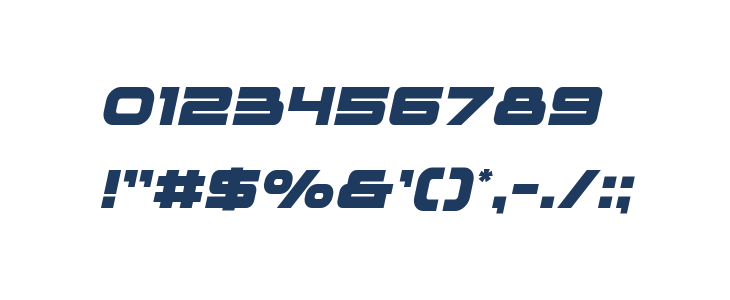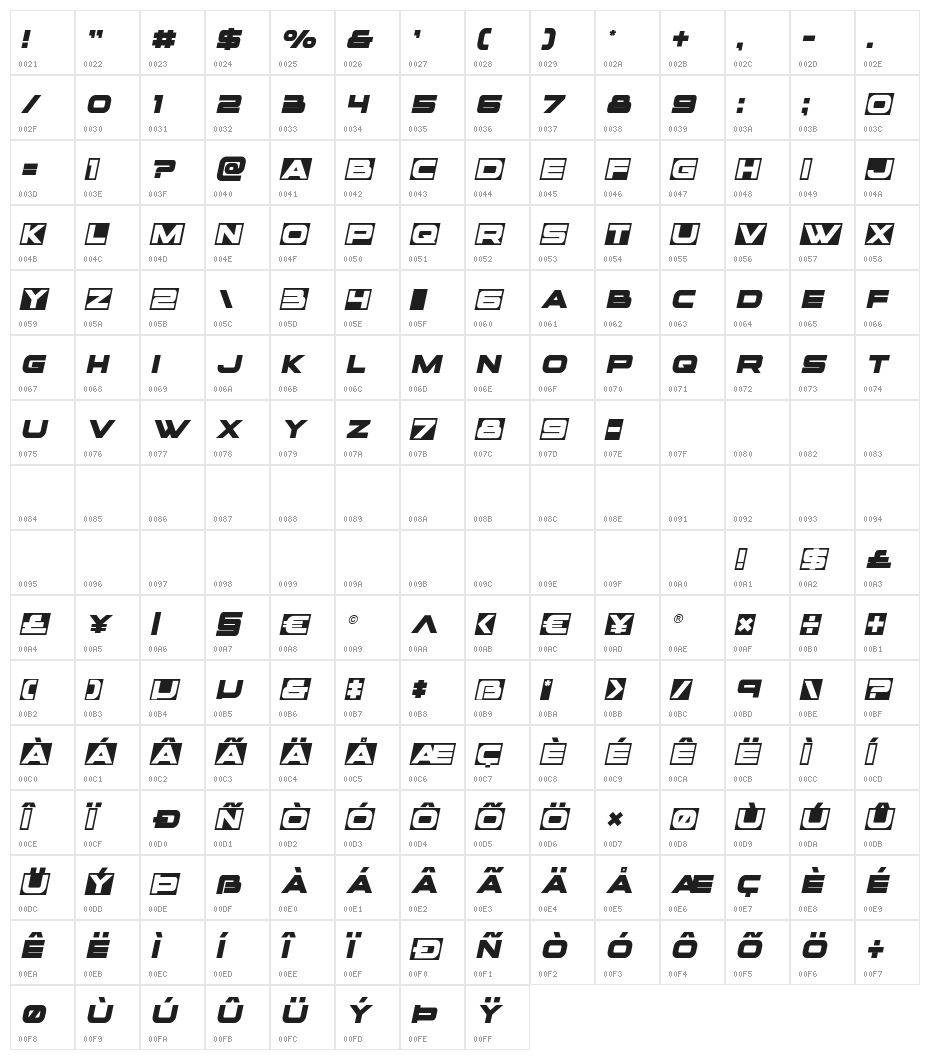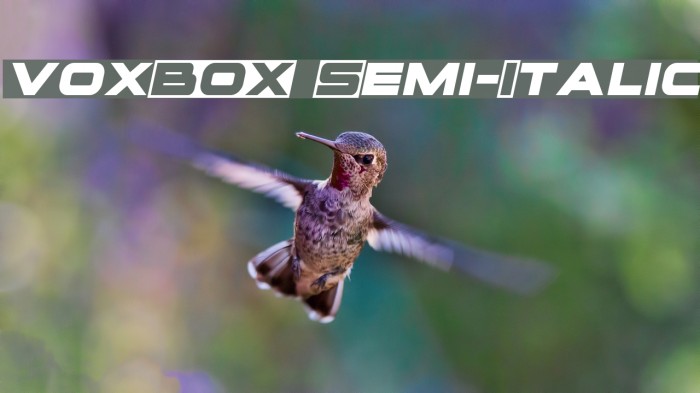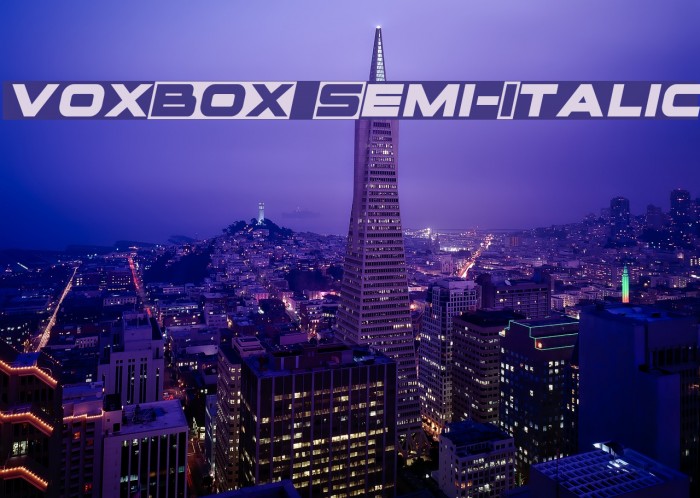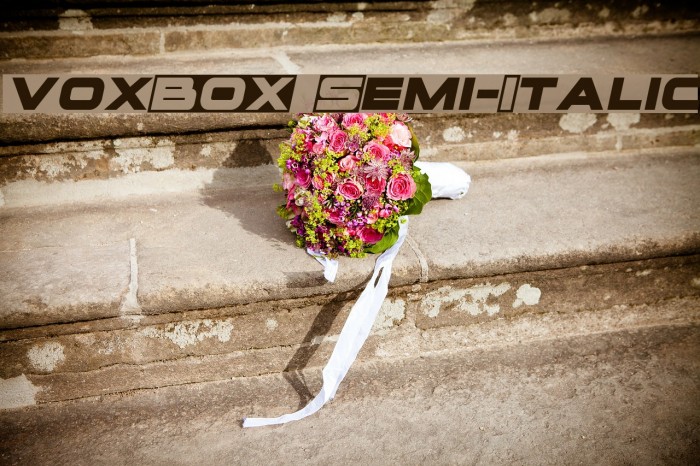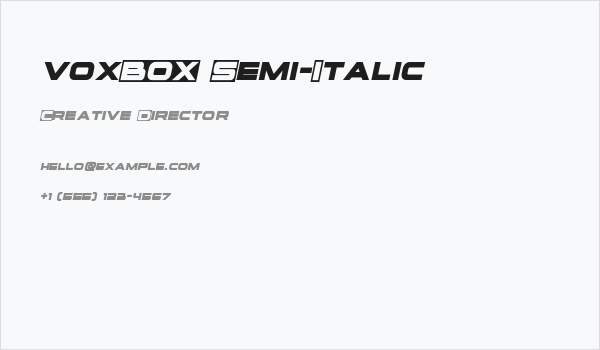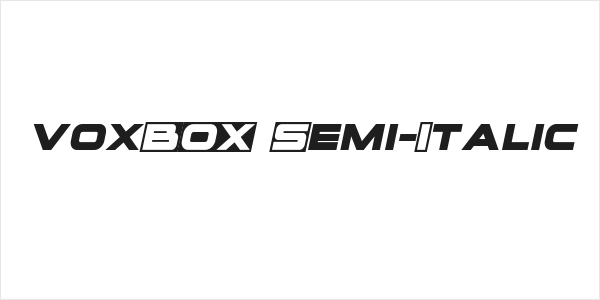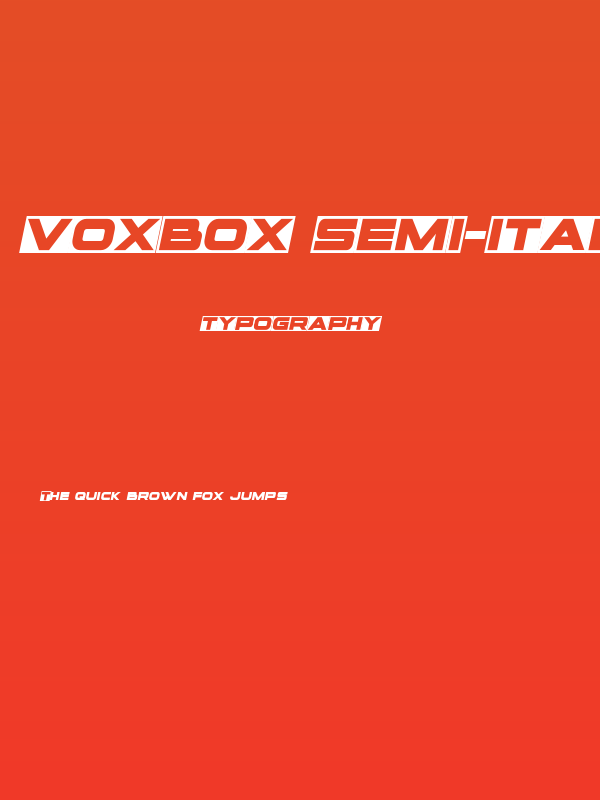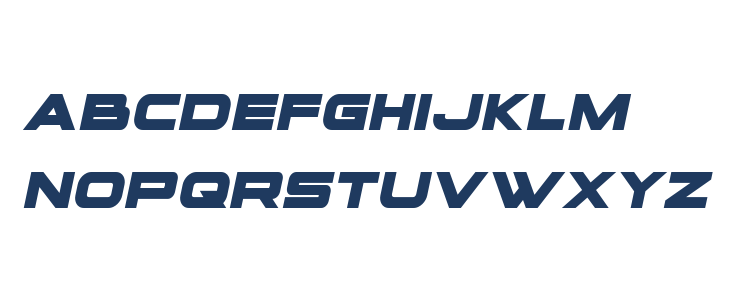
voxBOX Semi-Italic Font
voxBOX Semi-Italic Description
This font exhibits a bold and dynamic style with a strong italic slant, giving it a sense of motion and energy. The characters are wide and have a futuristic appearance, characterized by sharp angles and clean lines. The uppercase letters are particularly striking, with a uniform height and consistent stroke width, while the numbers and special characters maintain the same boldness and angularity. This font is designed to stand out, making it ideal for attention-grabbing headlines or branding that requires a modern and assertive look.